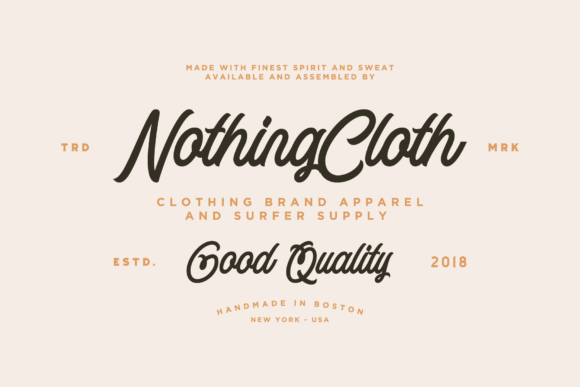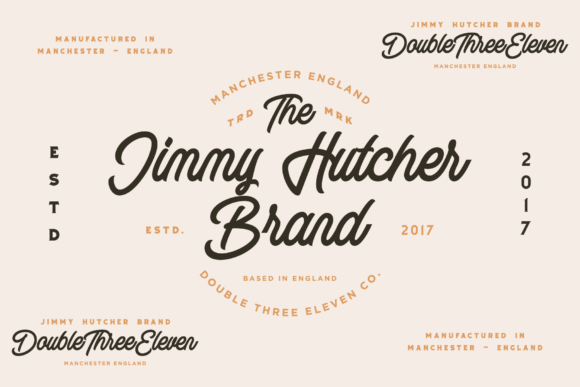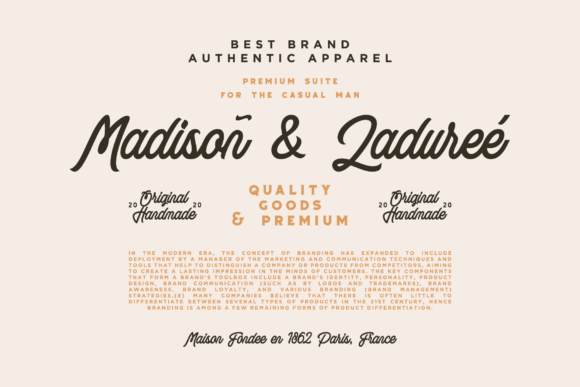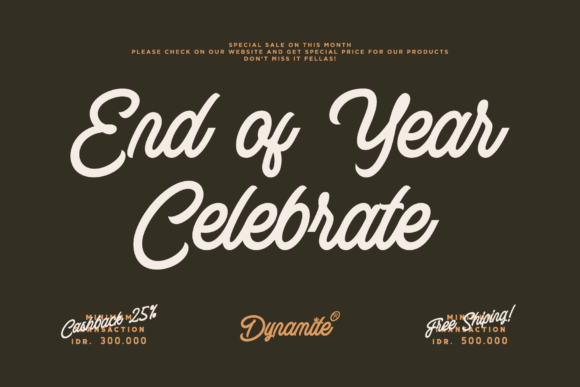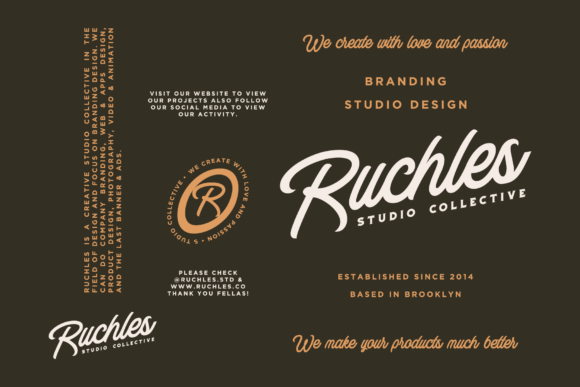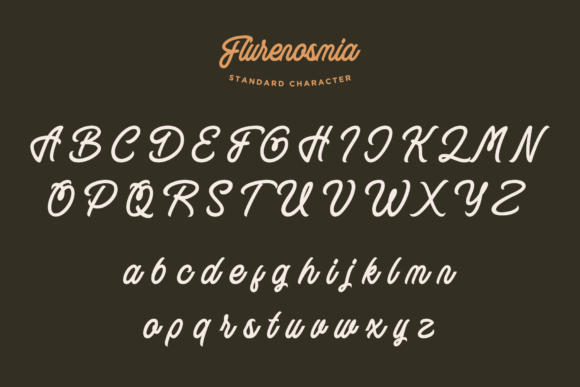
Introducing Flurenosmia Font: The Perfect Blend of Vintage Elegance and Modern Sophistication
Are you a designer or craftsperson looking for a font that exudes elegance, sophistication, and a touch of vintage charm? Look no further than Flurenosmia Font. This beautiful, well-balanced script font is designed to elevate your fashion branding, editorial designs, and creative projects to new heights. With its smooth curves and classic aesthetic, Flurenosmia Font is the perfect addition to your typography collection.
What Makes Flurenosmia Font So Special?
Flurenosmia Font is a masterfully crafted script font that boasts a unique blend of vintage flair and modern sophistication. Its smooth, flowing curves create a sense of movement and fluidity, making it perfect for designs that require a touch of elegance and refinement. Whether you’re working on a fashion brand, editorial design, or creative project, Flurenosmia Font is sure to impress.
Key Features of Flurenosmia Font
- Vintage Flair: Flurenosmia Font’s classic aesthetic is reminiscent of traditional script fonts, making it perfect for designs that require a touch of nostalgia and sophistication.
- Smooth Curves: The font’s smooth, flowing curves create a sense of movement and fluidity, making it perfect for designs that require a sense of dynamism and energy.
- Well-Balanced: Flurenosmia Font is carefully crafted to ensure that every letter and character is perfectly balanced, creating a sense of harmony and visual flow.
- Fashion Branding: Flurenosmia Font is perfect for fashion branding, with its elegant and sophisticated aesthetic making it ideal for logos, labels, and packaging.
- Editorial Designs: The font’s classic aesthetic and smooth curves make it perfect for editorial designs, including magazines, newspapers, and books.
Why Choose Flurenosmia Font?
With so many fonts to choose from, why should you choose Flurenosmia Font? Here are just a few reasons why this beautiful script font stands out from the crowd:
- Unique Aesthetic: Flurenosmia Font’s unique blend of vintage flair and modern sophistication makes it a standout in any design.
- Versatility: The font’s smooth curves and classic aesthetic make it perfect for a wide range of designs, from fashion branding to editorial designs.
How to Use Flurenosmia Font in Your Designs
Using Flurenosmia Font in your designs is easy. Here are a few tips to get you started:
- Pair it with Other Fonts: Flurenosmia Font pairs perfectly with other fonts, including sans-serif and serif fonts.
- Experiment with Sizes: The font’s smooth curves and classic aesthetic make it perfect for use at a variety of sizes, from large headlines to small body text.
- Add it to Your Brand: Flurenosmia Font is perfect for adding a touch of elegance and sophistication to your brand, making it ideal for logos, labels, and packaging.